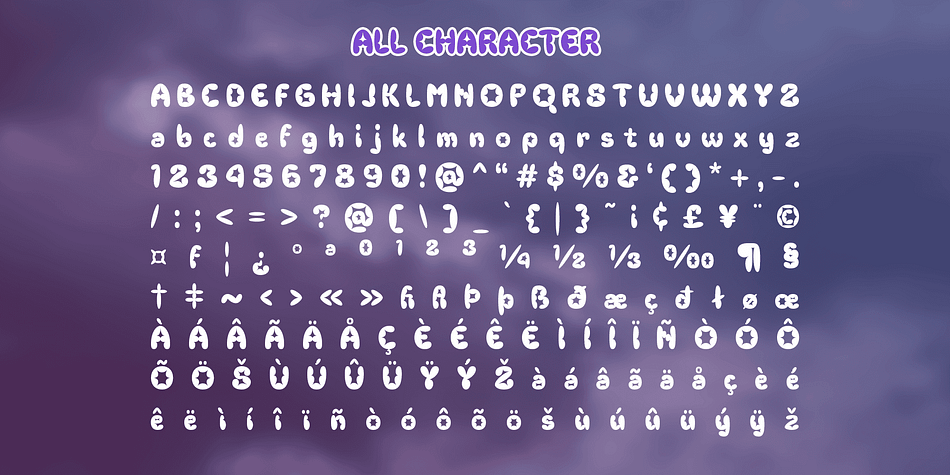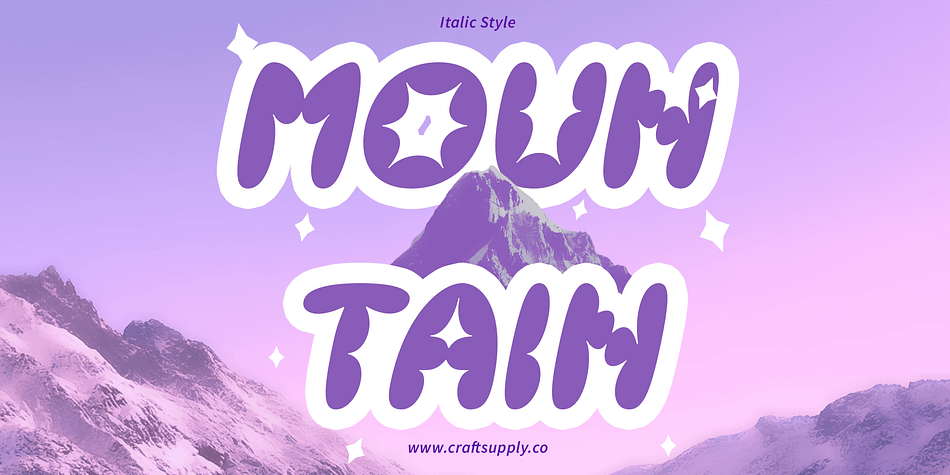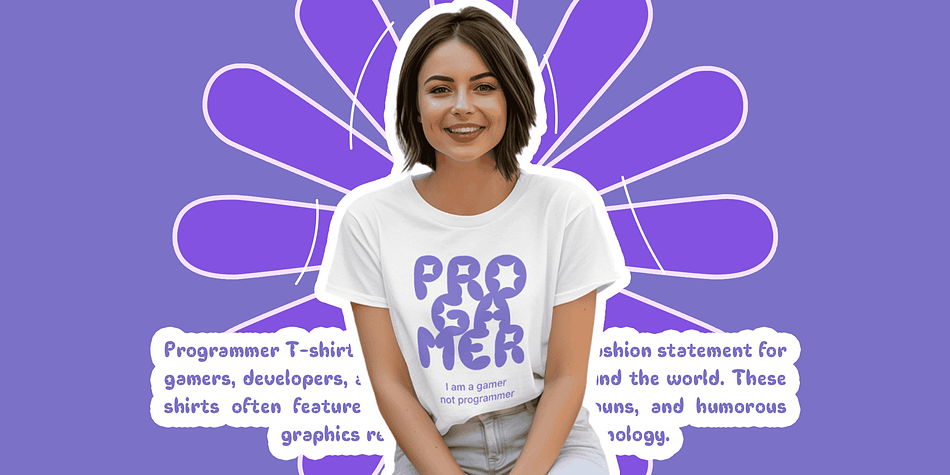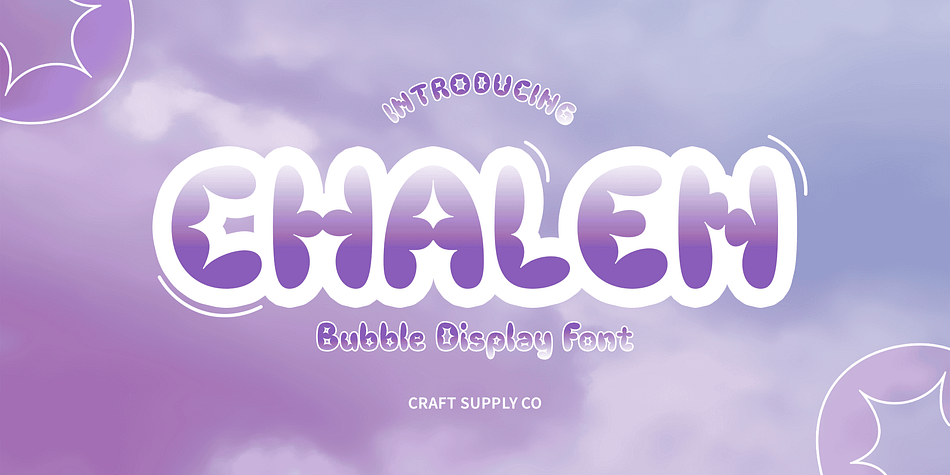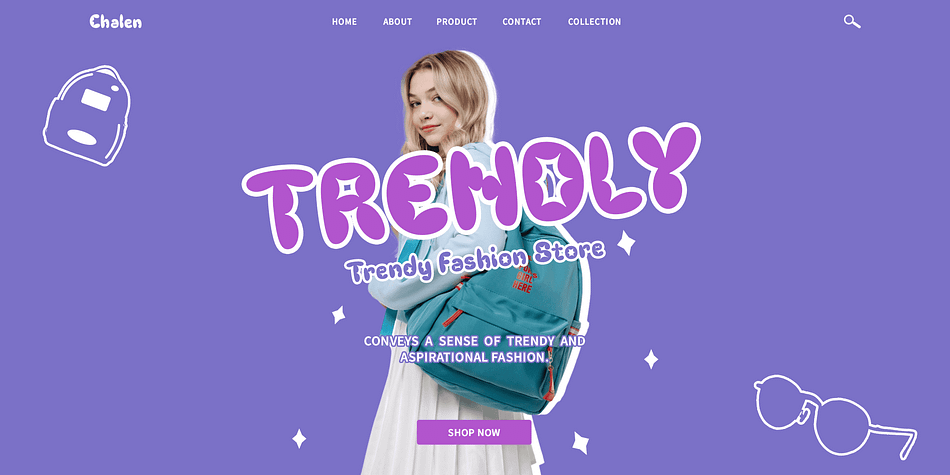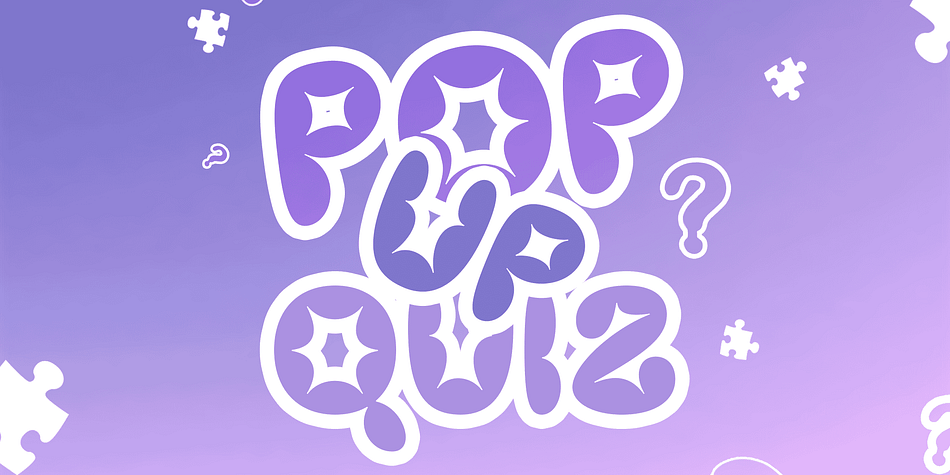
Chalen
Chalen is a novelty font family. This typeface has two styles and was published by Craft Supply Co.
Chalen: Fun and Playful Bubble Font
Bubble-Inspired Design
Chalen features a delightful bubble-inspired display design that brings a sense of joy and whimsy to any project. Each letter is crafted with rounded edges, resembling the playful shapes of bubbles, adding a charming touch to your designs.
Fun and Childish Vibes
With its playful appearance and childish vibes, This font injects a sense of fun and lightheartedness into your designs. Whether you’re creating birthday cards, party invitations, or playful signage, this font will instantly convey a cheerful and carefree atmosphere.
Versatile Application
This font is incredibly versatile, suitable for a wide range of applications including children’s books, posters, invitations, and more. Its legibility and distinctiveness make it perfect for both headlines and body text, allowing you to maintain consistency throughout your design.